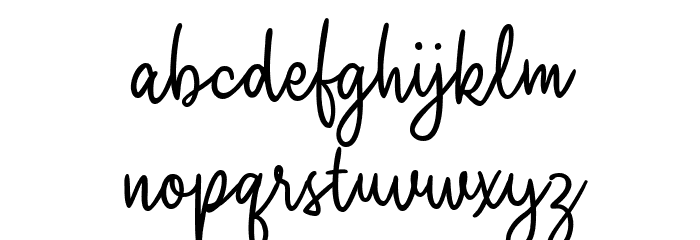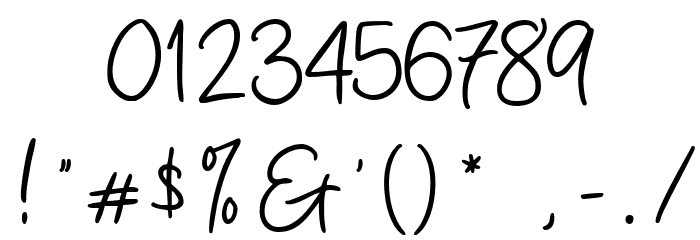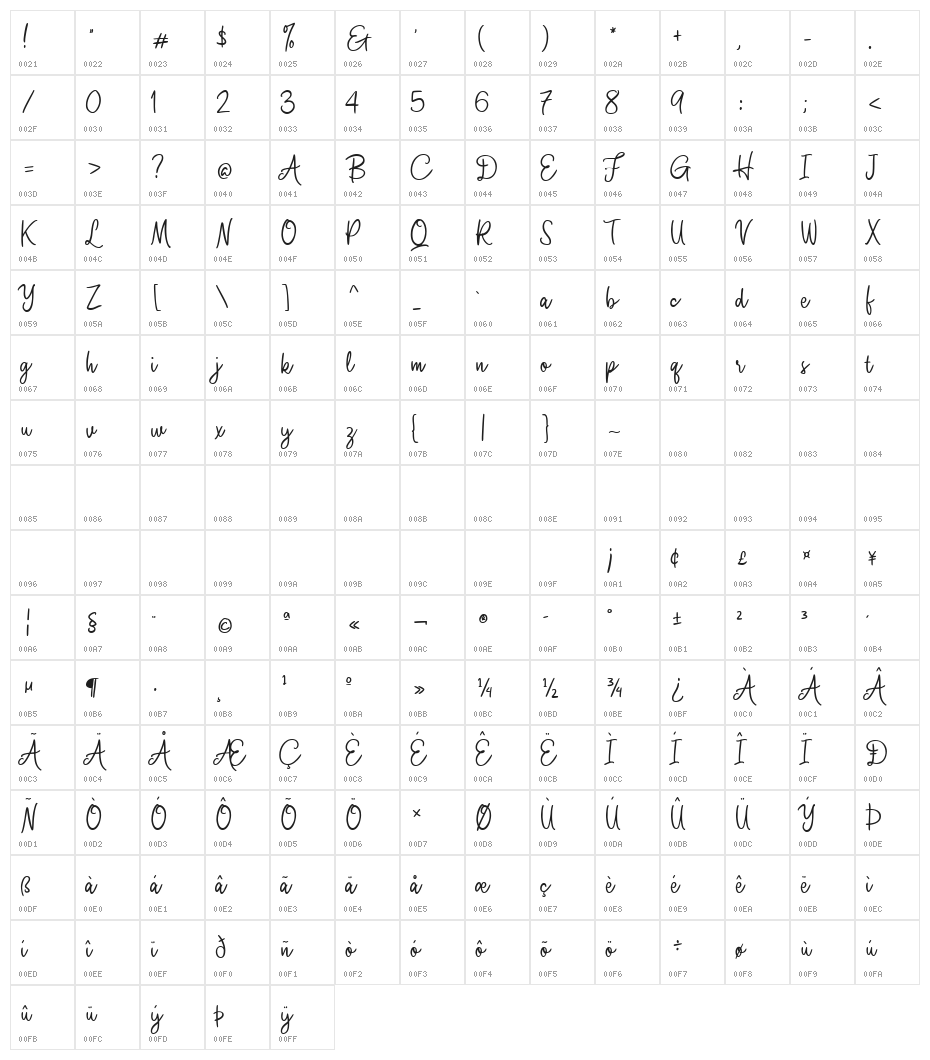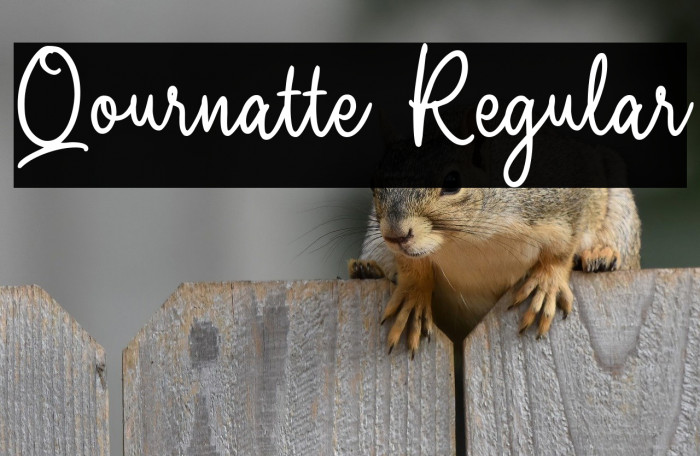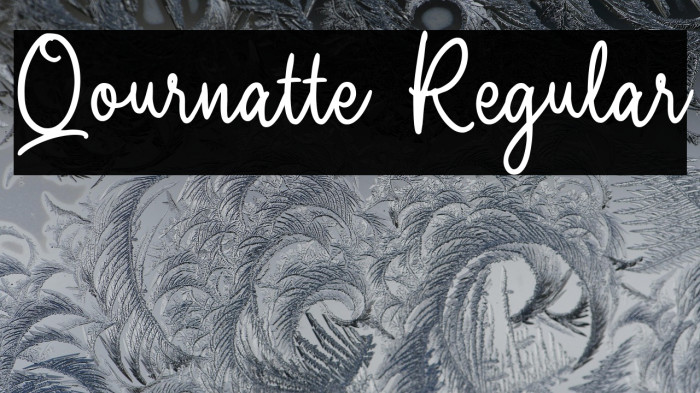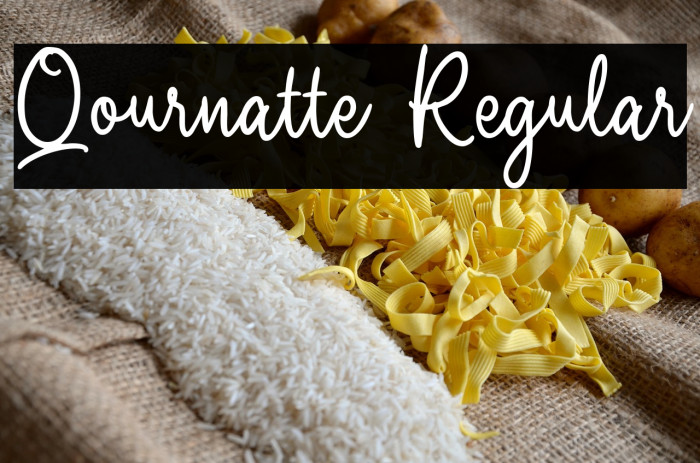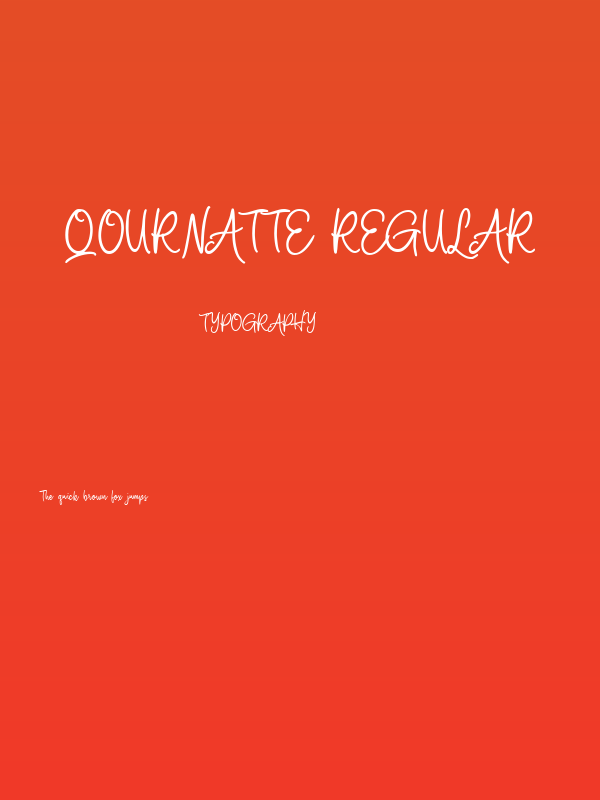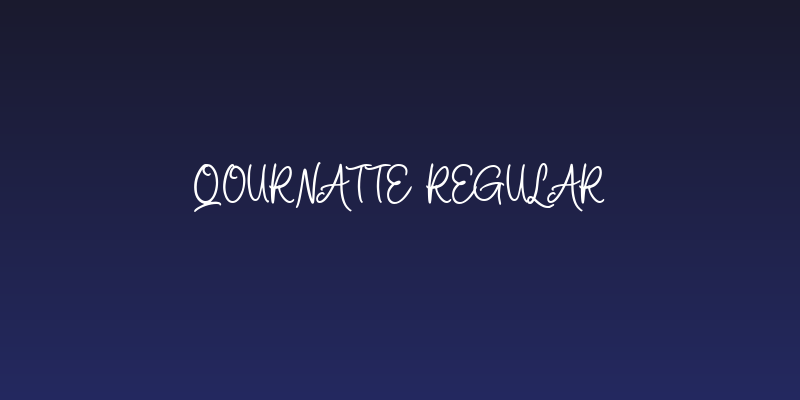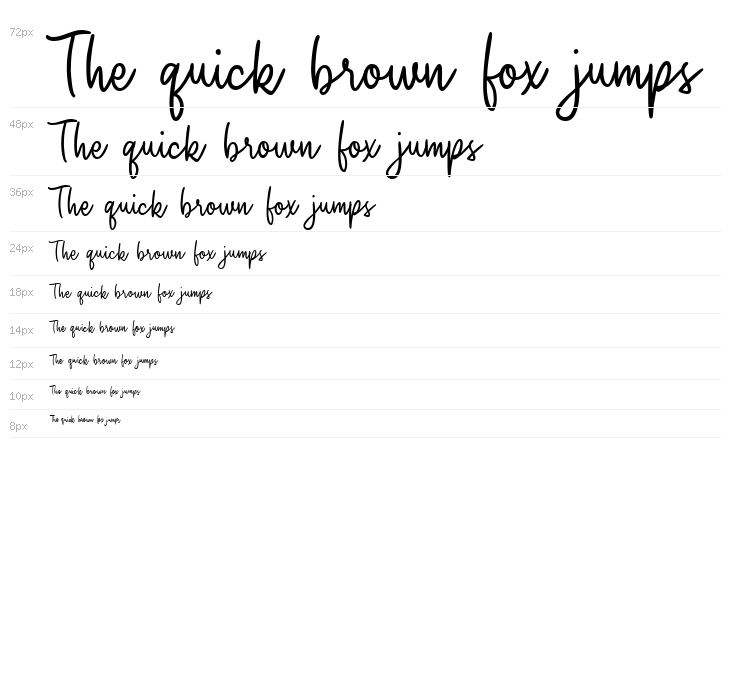
Qournatte Regular Font
This font exhibits a playful and casual handwritten style, characterized by its fluid and continuous strokes. The uppercase letters are bold and slightly slanted, giving a dynamic feel, while the lowercase letters maintain a consistent flow with a touch of elegance. The numerals are clear and legible, matching the overall aesthetic of the font. Special characters are well-integrated, maintaining the font's cohesive look. The design is versatile, suitable for various creative projects that require a personal touch.
A playful, casual handwritten font with fluid strokes and a dynamic feel.
- Font: Qournatte Regular
- Proposed Projects: Ideal for greeting cards, invitations, personal branding, and creative social media graphics.
- Category: Handwritten
- Overall Style: Casual
- Use Case: Headlines, Logos, Invitations